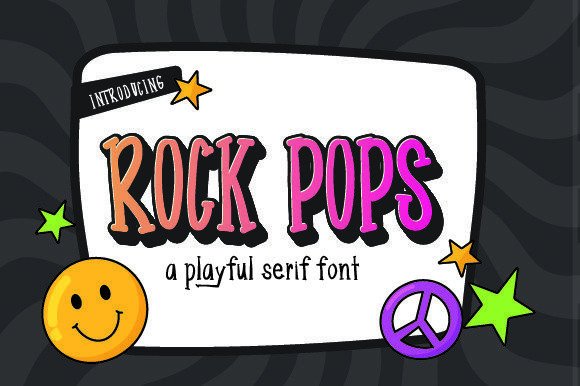
Rock Pops - Playful Comic Font for Kids Crafts & Stickers
Rock Pops is a lively serif‑style font designed for display, fun, and creative use. With its bold letterforms and a bonus 3D all‑caps style (including numbers), Rock Pops adds a dynamic, playful vibe to your designs, perfect when you want typography that stands out and grabs attention. It’s especially suited to vibrant, youthful or whimsical design aesthetics — not subtle or neutral, but full of personality.
Thanks to its display‑ready style and bonus 3D face, Rock Pops works beautifully for titles, posters, flyers, logos, social media graphics, packaging labels, signage, and other projects where impact matters over subtlety. Its versatility makes it a great tool for graphic designers, crafters, and creative business owners looking to add energy and character to their work.
- Standard “regular” display style
- Bonus 3D all‑caps + numbers style
- Full Latin character set (letters, numbers, punctuation, basic glyphs)
- Playful and bold — makes your designs stand out with lively, fun typography
- Bonus 3D all‑caps version adds creative flexibility and extra visual impact
Q: Does Rock Pops include special styles beyond the regular version?
A: Yes — Rock Pops includes a bonus 3D all‑caps style (with numbers) for extra visual flair, ideal for titles, logos, signage, or creative display text. :contentReference[oaicite:1]{index=1} -
| Font Style | Playful serif/display with bonus 3D all‑caps style | Classic serif or display — polished, traditional | Neutral sans‑serif display — minimal, modern |
| Visual Vibe | Fun, bold, energetic, expressive | Classic, refined, timeless | Clean, modern, minimal, neutral |